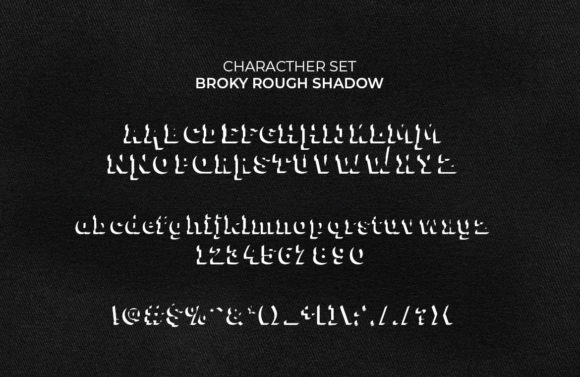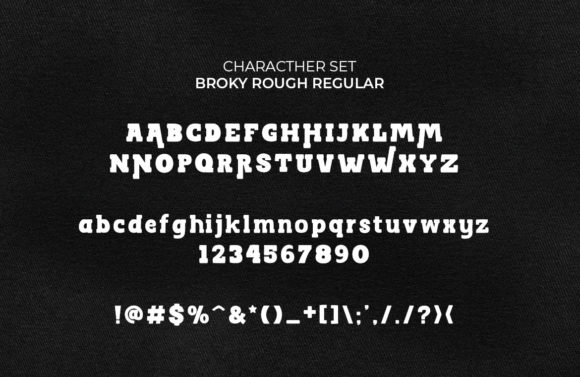
Introducing Broky Rough Font: The Ultimate Western-Inspired Slab Serif Font
Are you tired of using the same old fonts in your designs? Look no further! Broky Rough Font is here to revolutionize your typography with its unique western-inspired slab serif style. This cool font is perfect for designers, crafters, and anyone looking to add a touch of rugged charm to their creations.
What Makes Broky Rough Font So Special?
Broky Rough Font is a game-changer in the world of typography. Its slab serif design gives it a distinctive look that’s both bold and eye-catching. The rough texture adds a layer of ruggedness, making it perfect for designs that require a western or vintage feel. Whether you’re working on a logo, poster, or packaging design, Broky Rough Font is sure to elevate your creation.
Key Features of Broky Rough Font
- Western-Inspired Design: Broky Rough Font boasts a unique western-inspired design that’s perfect for creating cowboy-themed or vintage-style designs.
- Slab Serif Style: The slab serif style gives Broky Rough Font a bold and rugged look that’s sure to grab attention.
- Rough Texture: The rough texture adds a layer of authenticity to your designs, making them look like they were created with a vintage or distressed effect.
- Versatile: Broky Rough Font is versatile and can be used for a wide range of design projects, from logos and posters to packaging and more.
Who Can Benefit from Using Broky Rough Font?
Broky Rough Font is perfect for:
- Graphic Designers: Add a touch of rugged charm to your designs with Broky Rough Font.
- Crafters: Use Broky Rough Font to create unique and eye-catching craft projects, such as signs, posters, and more.
- Advertising Agencies: Create bold and attention-grabbing ads with Broky Rough Font.
- Small Business Owners: Use Broky Rough Font to create professional-looking logos, business cards, and marketing materials.
How to Use Broky Rough Font in Your Designs
Using Broky Rough Font in your designs is easy! Here are a few tips to get you started:
- Pair it with a sans-serif font: Pair Broky Rough Font with a clean sans-serif font to create a striking contrast.
- Use it for headlines: Broky Rough Font is perfect for headlines and titles, where its bold and rugged style can really shine.
- Experiment with colors: Try using Broky Rough Font in different colors to add depth and interest to your designs.
In conclusion, Broky Rough Font is an incredible asset to any designer’s font library. Its unique western-inspired slab serif style and rough texture make it perfect for creating bold and eye-catching designs. Whether you’re a graphic designer, crafter, or small business owner, Broky Rough Font is sure to elevate your creations and help you stand out from the crowd.